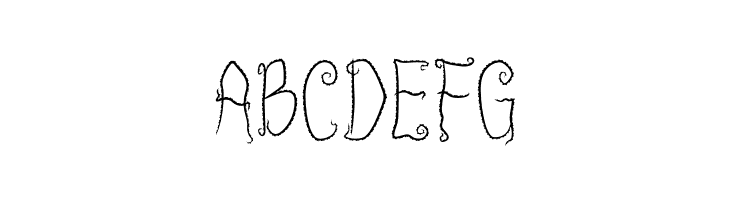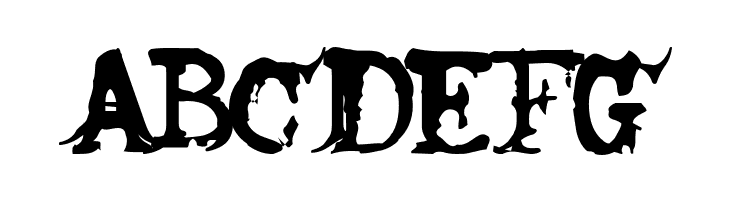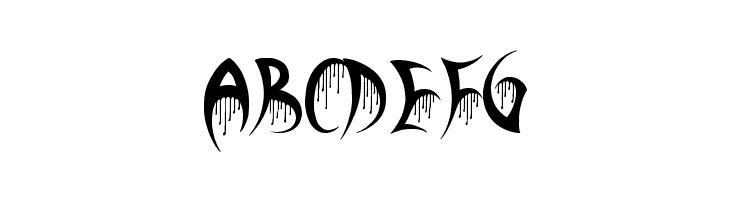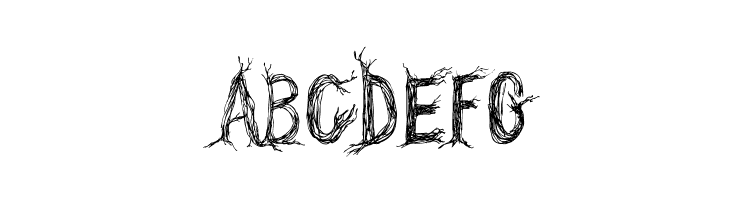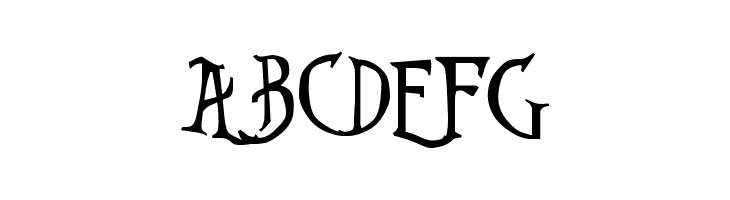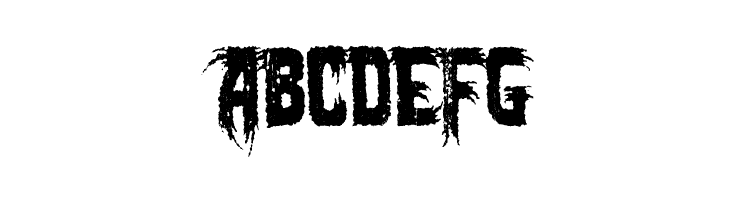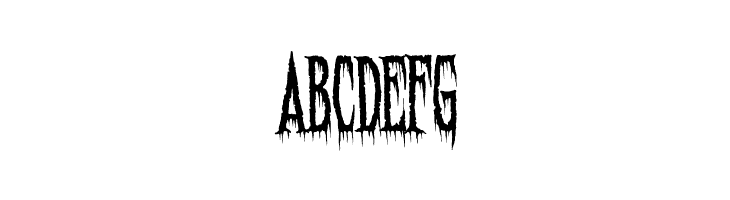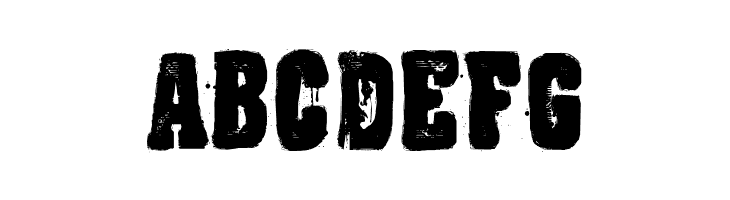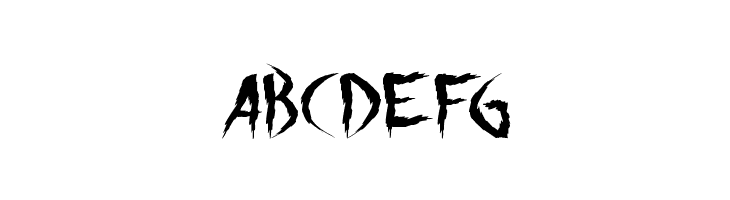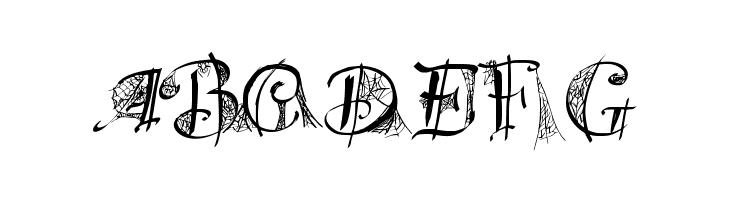
A bold, shadowed font with gothic and spooky elements, perfect for Halloween themes.
A bold, shadowed font with jagged edges, perfect for spooky themes.
A dripping, gothic-style font with a bold, artistic flair.
A whimsical, decorative font with swirling embellishments and a hand-drawn feel.
A creepy, dripping font perfect for horror themes.
A bold, dripping font perfect for horror-themed designs.
A haunting, organic font with dripping, vine-like letters.
A playful, dripping font with a hand-drawn, melting appearance.
A dripping, horror-themed font with jagged, melting characters.
A dramatic, horror-themed font with sharp edges and dripping elements.
A decorative font with characters resembling intertwined branches or roots.
A bold, horror-themed font with dripping, jagged characters.
A spooky, bone-themed decorative font ideal for Halloween designs.
A whimsical, gothic-style font with irregular strokes and playful curves.
A bold, distressed font with a spooky, ghostly aesthetic.
A bold, dripping font with a horror-inspired, decorative style.
A jagged, gothic font with sharp, thorn-like characters.
A creepy, jagged font with a horror-inspired, dripping aesthetic.
A bold, distressed font ideal for spooky, horror-themed designs.
A gothic, decorative font with dripping, jagged edges and thorn-like extensions.
A decorative font with a dripping, organic style, perfect for bold, eye-catching designs.
A playful, bone-themed decorative font with a quirky skeletal design.
A whimsical Halloween-themed design with playful illustrations.
A bold, brush-stroke font with a hand-painted, dynamic appearance.
A playful, hand-drawn font with a spooky, irregular style.